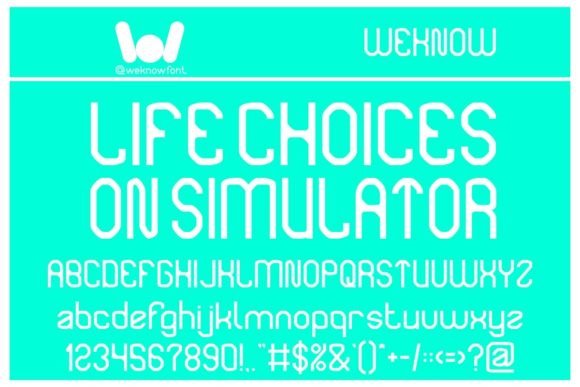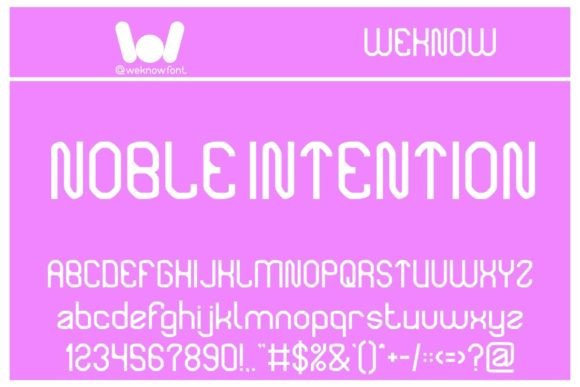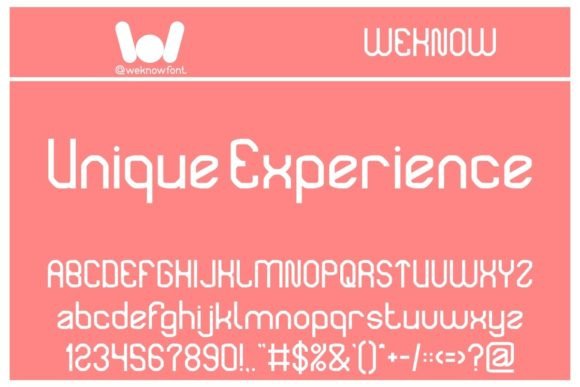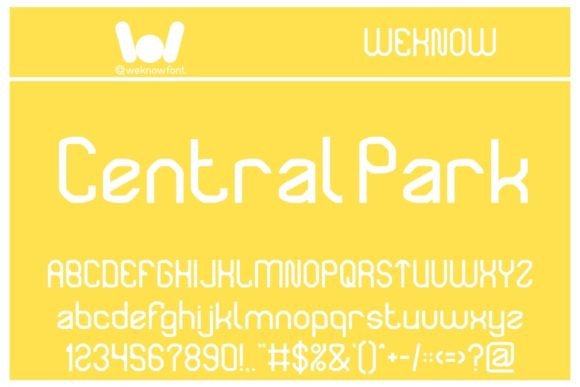
Introducing Dear Future Font: The Ultimate Techno-Sci-Fi Display Font
Are you tired of using the same old fonts for your designs? Look no further! Dear Future Font is here to revolutionize the way you create. This techno-sci-fi display font is bold, legible, and packed with a wide range of characters to choose from. In this article, we’ll dive into the features and benefits of Dear Future Font, and explore how it can elevate your designs to the next level.
What is Dear Future Font?
Dear Future Font is a techno-sci-fi display font designed to make a statement. Its bold and futuristic style is perfect for creating eye-catching headlines, titles, and captions. The font is highly legible, even at smaller sizes, making it versatile for use in various design projects. Whether you’re working on a logo, poster, or website, Dear Future Font is sure to grab attention.
Key Features of Dear Future Font
- Wide Range of Characters: Dear Future Font comes with a vast character set, including uppercase and lowercase letters, numbers, and special characters. This means you can create complex and detailed designs without having to switch between multiple fonts.
- Bold and Legible: The font’s bold style ensures that your text stands out, while its legibility ensures that your message is conveyed clearly.
- Techno-Sci-Fi Style: The font’s futuristic style is perfect for creating designs that require a technological or sci-fi feel.
- High-Quality: Dear Future Font is designed with high-quality in mind, ensuring that your designs look professional and polished.
Who is Dear Future Font for?
Dear Future Font is perfect for designers, crafters, and anyone looking to add a touch of futurism to their designs. This font is ideal for:
- Graphic Designers: Use Dear Future Font to create stunning logos, posters, and brochures that grab attention.
- Crafters: Add a touch of futurism to your craft projects, such as handmade cards, scrapbooking, and DIY decor.
- Web Designers: Use Dear Future Font to create eye-catching headlines and titles for your website, adding a touch of personality to your design.
Tips and Tricks for Getting the Most out of Dear Future Font
- Experiment with Different Sizes: Dear Future Font looks great at larger sizes, but it can also be used at smaller sizes to create detailed and intricate designs.
- Combine with Other Fonts: Pair Dear Future Font with other fonts to create interesting and contrasting designs.
- Use in Combination with Images: Use Dear Future Font in combination with images to create stunning and eye-catching designs.